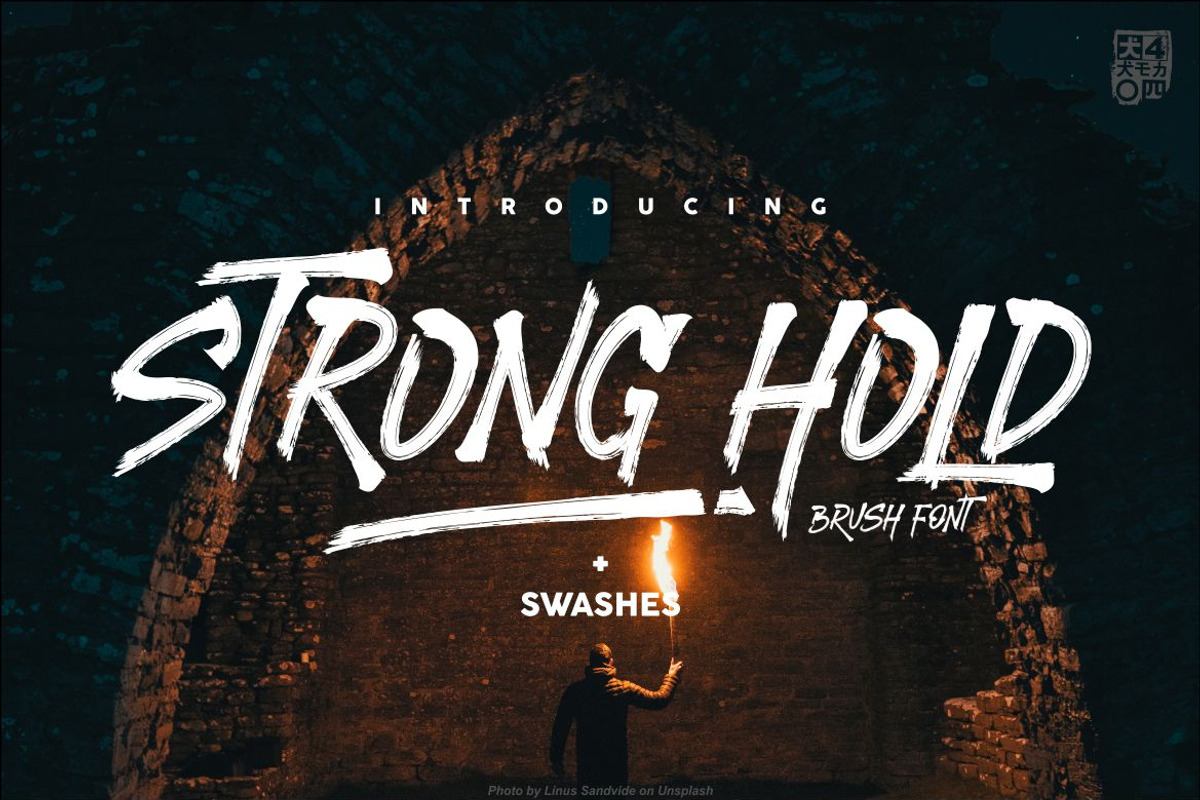
STRONGHOLD Brush font Free Download
STRONGHOLD Brush Font Free Download is a bold and rugged typeface that delivers raw energy and powerful presence. With its hand-painted brush strokes, rough texture, and expressive letterforms, STRONGHOLD is perfect for sports branding, music covers, apparel design, poster art, and urban-themed graphics.
Designed to stand out, this font adds a rebellious edge and street-style attitude to any project. Whether you're creating dynamic headlines or gritty logos, STRONGHOLD brings emotion, impact, and authenticity to your typography.